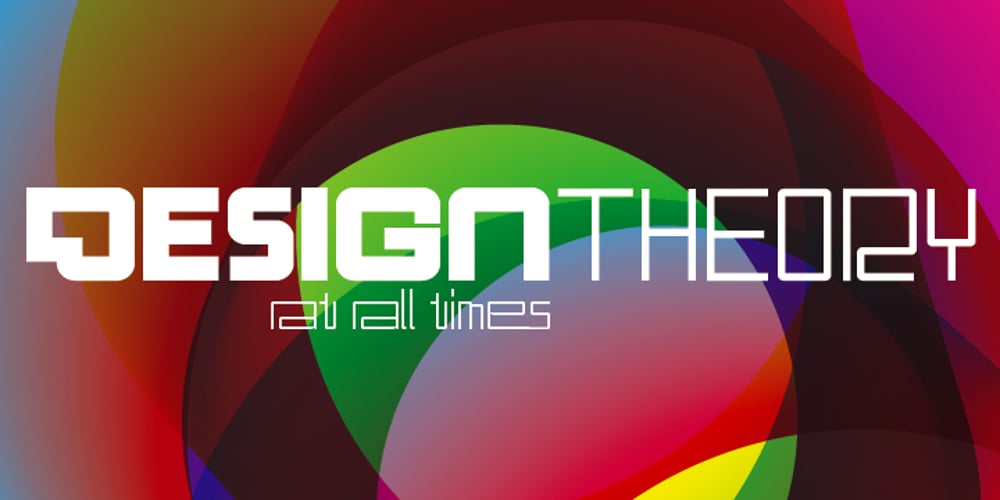
DBL Cheque
DBL Cheque font
DBL Cheque Font Family was designed by Valery Golyzhenkov and published by Letterhead Studio-VG. DBL Cheque contains 22 styles and family package options. This is an experimental type, something of retro-futurism and modern robotics in one package, with letters of unexpected proportions and forms. It was inspired by the glorious imagination of the past, but it holds in itself themes that are bound with the future. The DBL Cheque family consists of incredible 22 styles, filling every need for demanding designers.